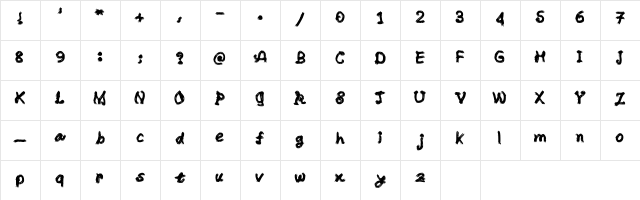
Chalk Drawings Regular
Design Context for Chalk Drawings Typeface
Chalk Drawings is a composed and adaptable typeface that performs quietly and consistently across a wide range of design contexts.